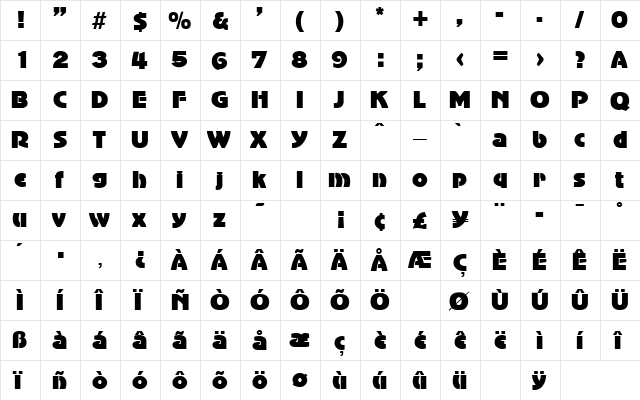
AdvertisersGothic Regular
Design Context for AdvertisersGothic Typeface
AdvertisersGothic has the quiet confidence of well-executed sans-serif typography: versatile, unobtrusive, and dependable at any size.
Font Pairing: Works well alongside a characterful serif or display font that can carry the expressive load while AdvertisersGothic handles the functional copy.
Pro Tip: Use AdvertisersGothic for UI labels, navigation, and short-form body copy where clean legibility is the priority.